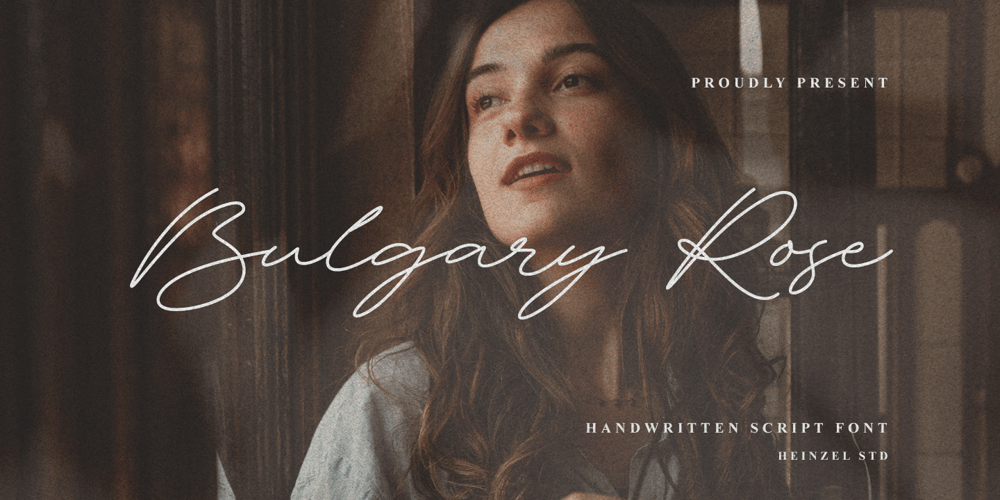
Bulgary Rose
Bulgary Rose font
Bulgary Rose Font Family was designed by Nofi Sofyan Hadi and published by Heinzel Std. Bulgary Rose contains 1 styles and family package options. Bulgary Rose is a Signature Script Font, described by an elegant touch, perfect for your favorite projects. It looks stunning on wedding invitations, thank you cards, quotes, greeting cards, logos, business cards, social media, magazines, marketing materials, and every other design which needs a handwritten touch. Fall in love with its incredibly distinct and timeless style and use it to create spectacular designs!